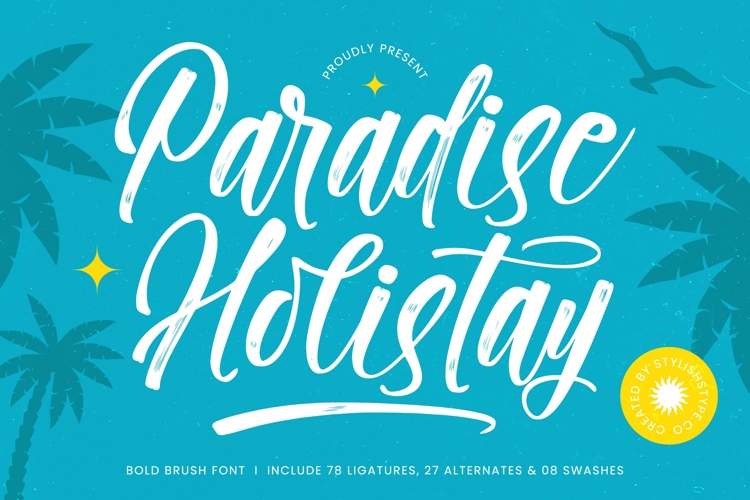
Paradise Holistay - Bold Brush Font
Paradise Holistay - Bold Brush Font is a dynamic, high-impact script designed to capture the spontaneous feel of genuine hand-lettering. Its robust weight ensures maximum visibility and editorial appeal, while the subtly dry, visible texture maintains an organic, artisanal aesthetic. This font flows with a joyful rhythm, utilizing dramatic letter connections that instantly communicate a sense of vibrant creativity and expressive freedom.